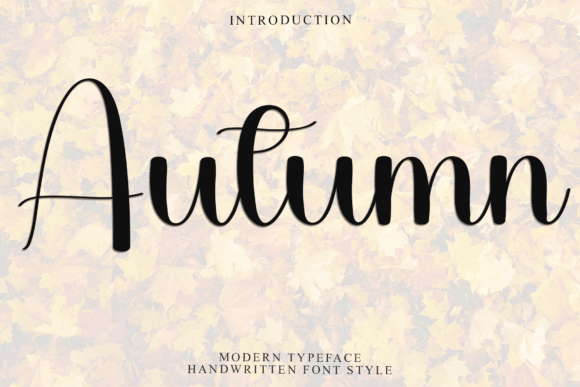
The Magic of Autumn Font: Elevating Your Designs with Elegance
I still remember the design project that led me to discover the stunning Autumn Font. I was working on a wedding invitation for a client who wanted something that exuded romance, sophistication, and a touch of whimsy. As I scrolled through font after font, nothing seemed quite right – until I stumbled upon Autumn Font. Its elegant, flowing script captured the essence of hand-lettered calligraphy with a modern twist, and I knew I had found the perfect fit.
So, what makes Autumn Font so special? Let’s dive into the details:
- ✨ Smooth curves and graceful strokes: Autumn Font’s fluid lines make it perfect for creating beautiful, eye-catching designs that demand attention.
- ✅ Versatile and adaptable: Whether you’re going for romantic, classy, or chic, this font delivers charm and personality in every letter.
- 💕 Perfect for wedding invitations and more: Its elegant vibe makes it an excellent choice for wedding invites, logos, branding, social media, and any project that needs a touch of sophistication.
Of course, no font is perfect, and Autumn Font has a few minor quirks:
- 🤔 Limited use in body text: Due to its elegant, cursive nature, Autumn Font might not be the best choice for lengthy body text. It’s best used for headings, titles, or short paragraphs.
- ⚠️ Requires attention to spacing: To get the most out of Autumn Font, you may need to adjust the spacing between letters to ensure optimal readability.
- Experiment with OpenType features, such as stylistic alternates and glyphs, to add more personality to your design.
The Story Behind Autumn Font: Designer Inspiration
While the true story behind Autumn Font’s creation may be unknown, it’s easy to imagine that the designer was inspired by the beauty of hand-lettered calligraphy and the elegance of traditional typography. Perhaps they sought to create a font that would bring a touch of sophistication and romance to designs, while still feeling modern and fresh.
Q: Is Autumn Font suitable for body text?
A: While Autumn Font is beautiful, it’s best used for headings, titles, or short paragraphs. Its elegant, cursive nature may not be ideal for lengthy body text.